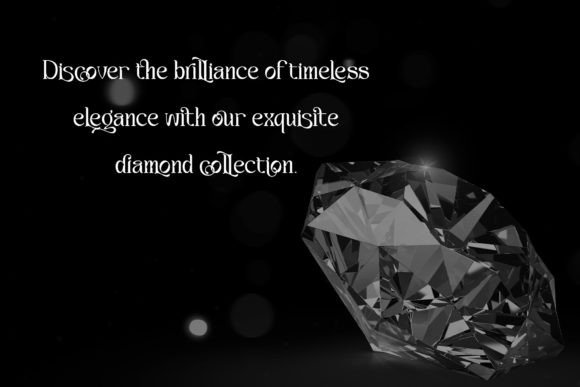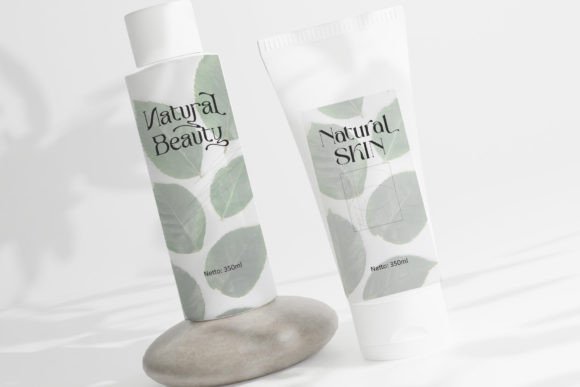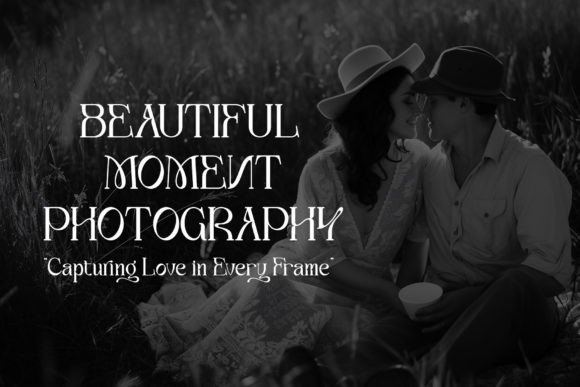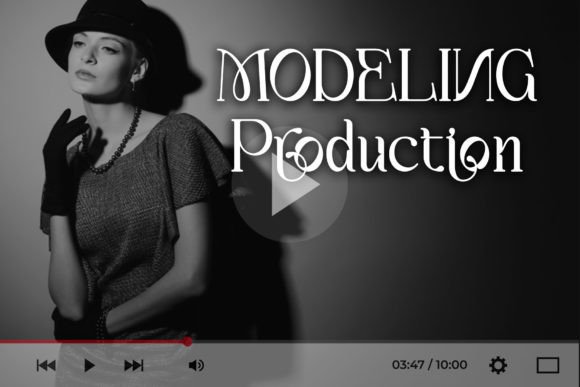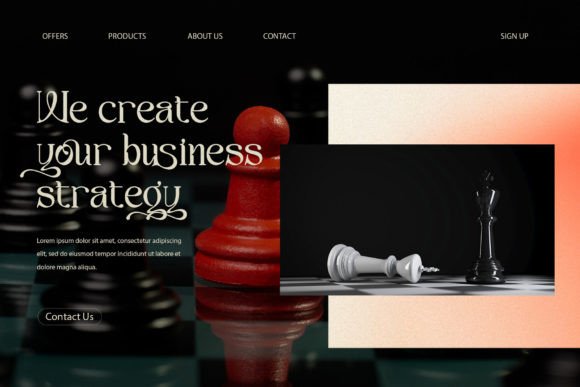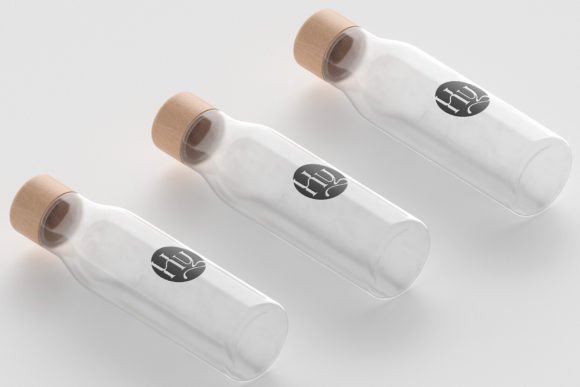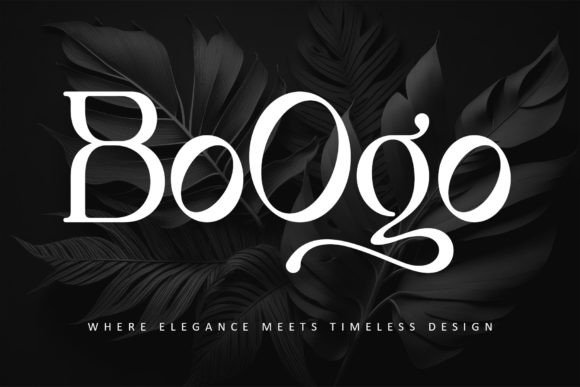
The Elegance of Boogo: A Serif Font that Elevates Design
I still remember the frustration of working on a high-end branding project, only to find myself stuck on the perfect font. My client wanted something that exuded luxury, sophistication, and a touch of uniqueness. I scoured the internet, tried countless fonts, but nothing seemed to fit the bill. That was until I stumbled upon Boogo, a serif font that has since become my go-to for elegant designs. In this article, I’ll share my love for Boogo, its features, and how to make the most of it in your design projects.
An Honest Review of Boogo
What I Love About Boogo ✨
• 💯 Sophisticated and Bold: Boogo’s serif design is both elegant and attention-grabbing, making it perfect for high-end branding, product packaging, and refined designs.
• 🎨 Unique Character Forms: The font’s distinctive glyphs and swashes add a creative touch to any design, setting it apart from more traditional serif fonts.
• 🔍 PUA Encoding: Boogo’s PUA (Private Use Area) encoding ensures easy access to a wide range of glyphs and swashes, making it incredibly versatile.
• 👍 Exceptional Results: With Boogo, you can achieve professional-looking results in various design projects, from elegant product packaging to refined branding.
While Boogo is an excellent font, there are a few minor limitations to be aware of:
• 🤔 Learning Curve: With so many glyphs and swashes available, it may take some time to get familiar with the font’s features and how to access them.
• ⚠️ Compatibility Issues: As with any font, there may be compatibility issues with certain software or platforms, so be sure to test Boogo thoroughly in your design environment.
The Story Behind Boogo
Boogo’s creation was inspired by the need for a sophisticated, yet unique serif font. Its designer aimed to craft a font that would blend elegance with creative flair, making it perfect for a wide range of design projects. While the actual story behind Boogo might be fictional, its impact on the design world is undeniable.
Q: What is Boogo’s encoding?
A: Boogo uses PUA (Private Use Area) encoding, which allows for easy access to a wide range of glyphs and swashes.